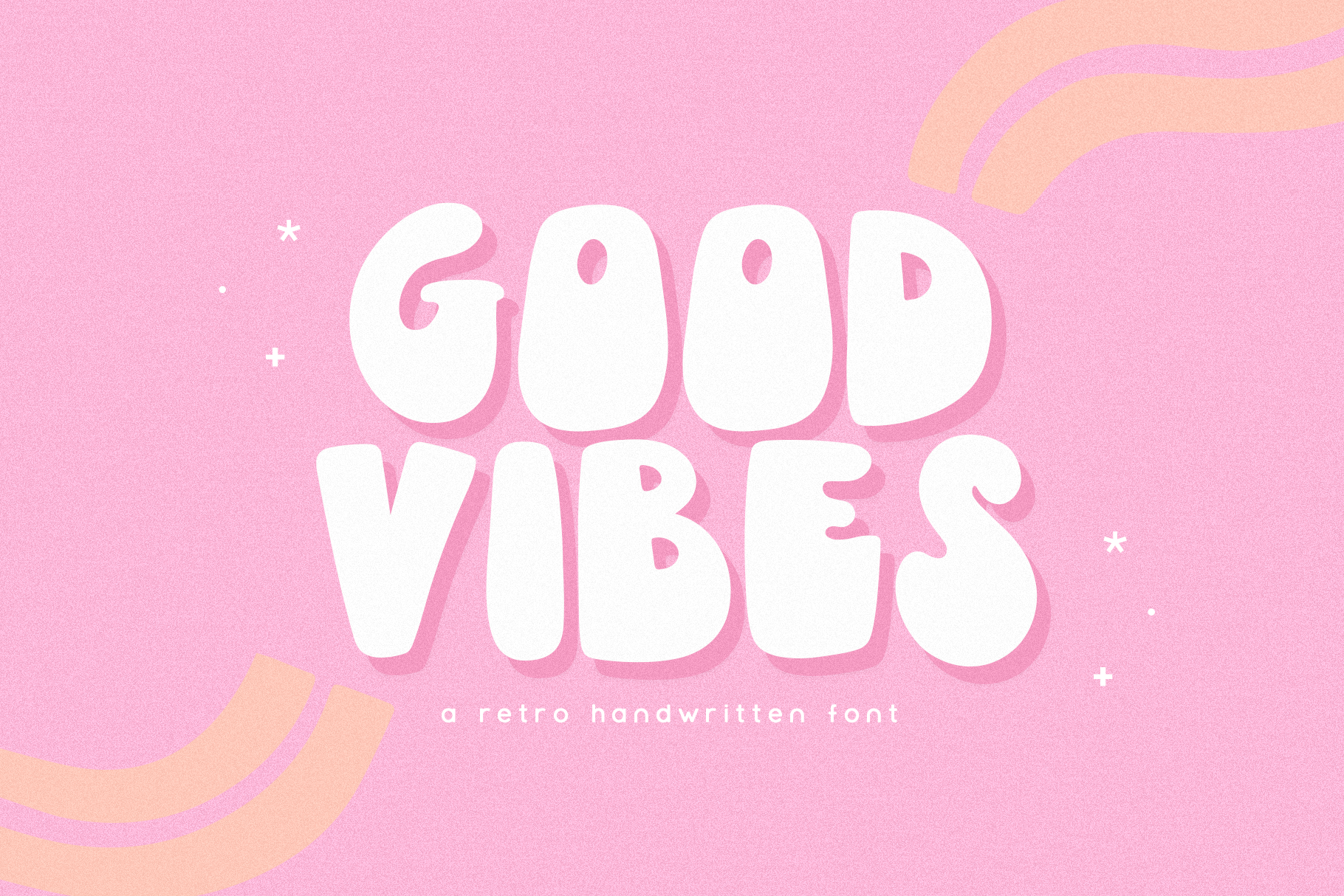
Good Vibes | Retro Font
Good Vibes is a funky handwritten font!
This font is perfect for all of your retro designs, procreate designs, social media, shirts, stickers, branding, logos, prints, Cricut projects, svg designs and more!